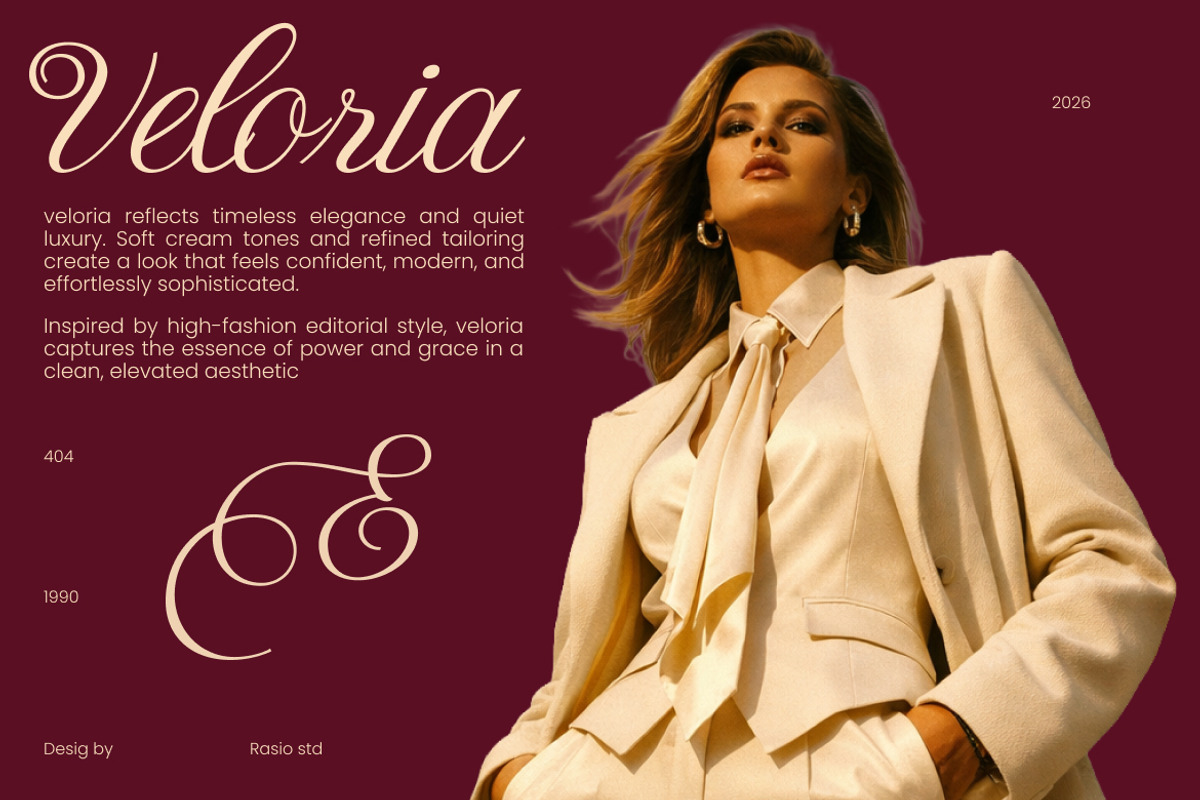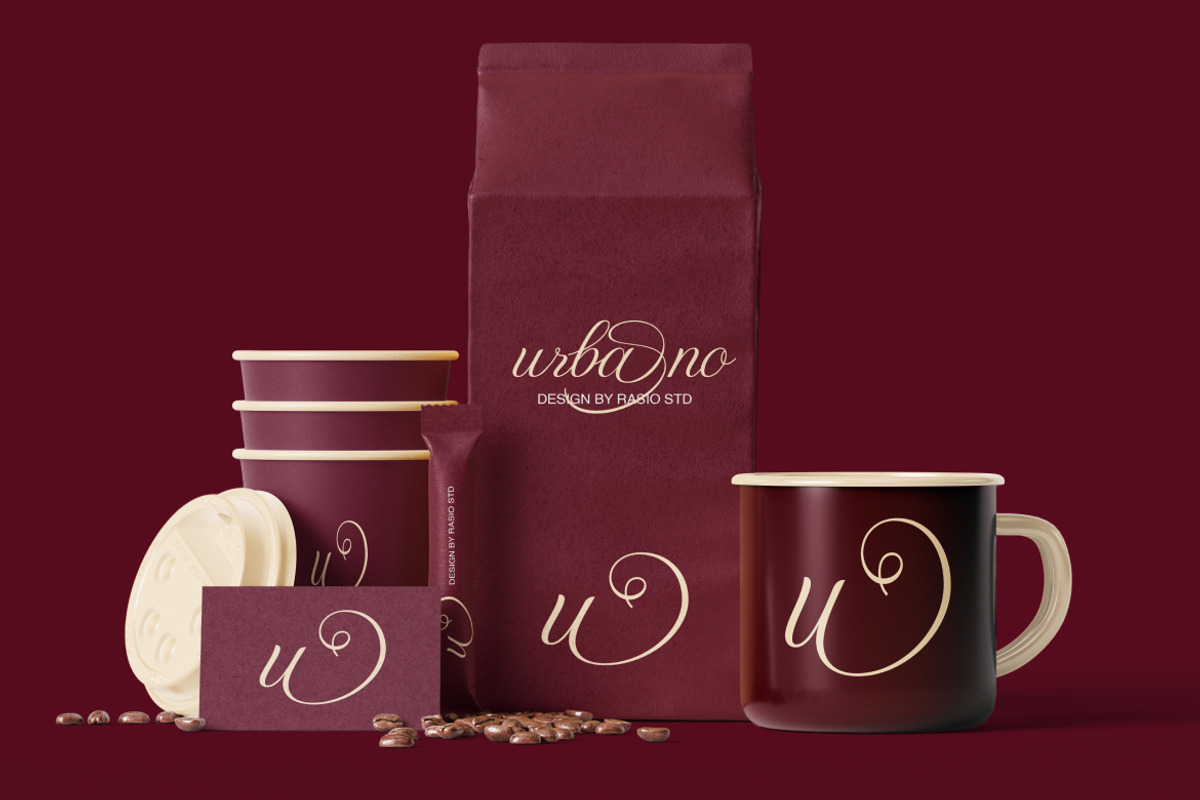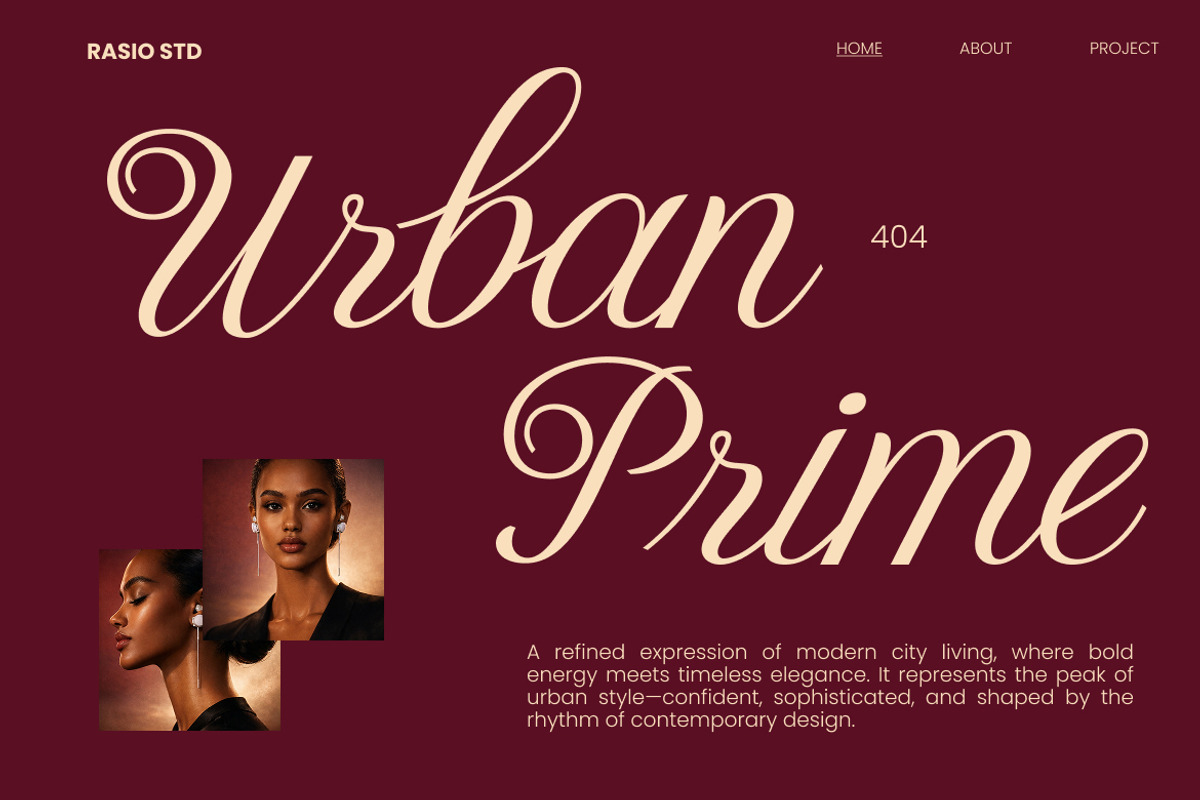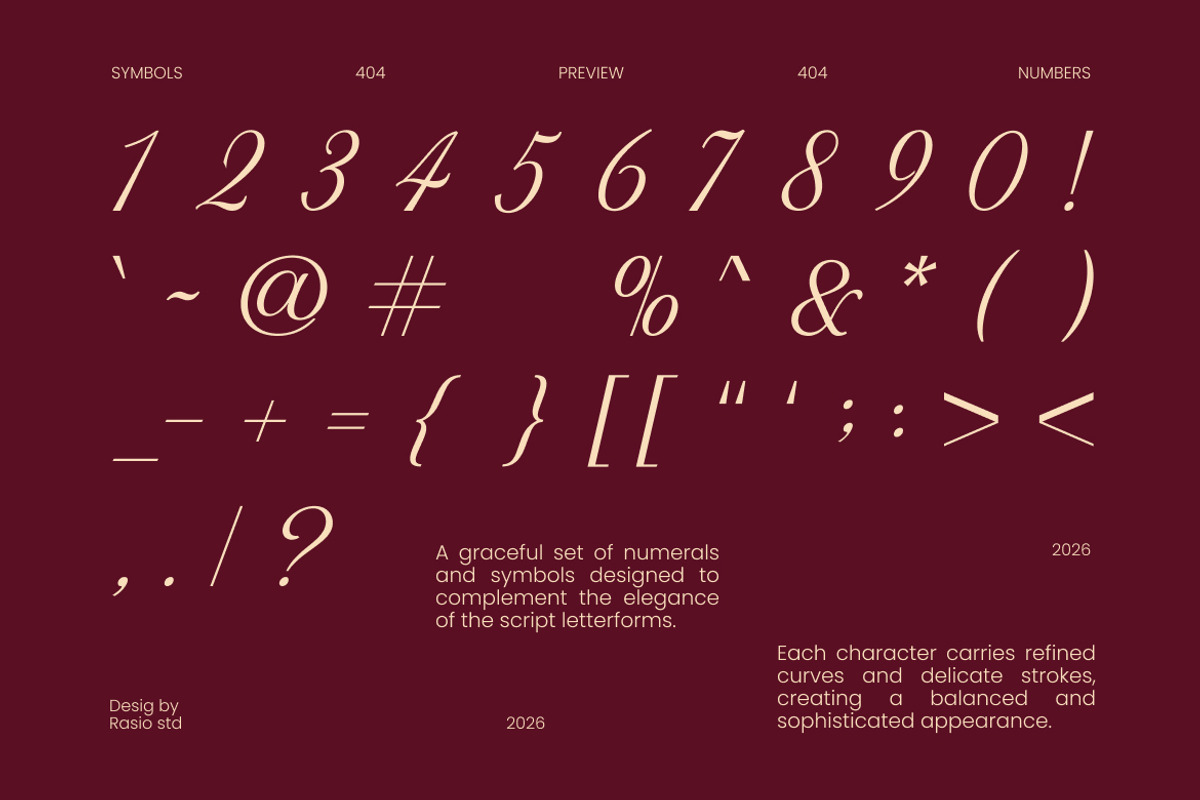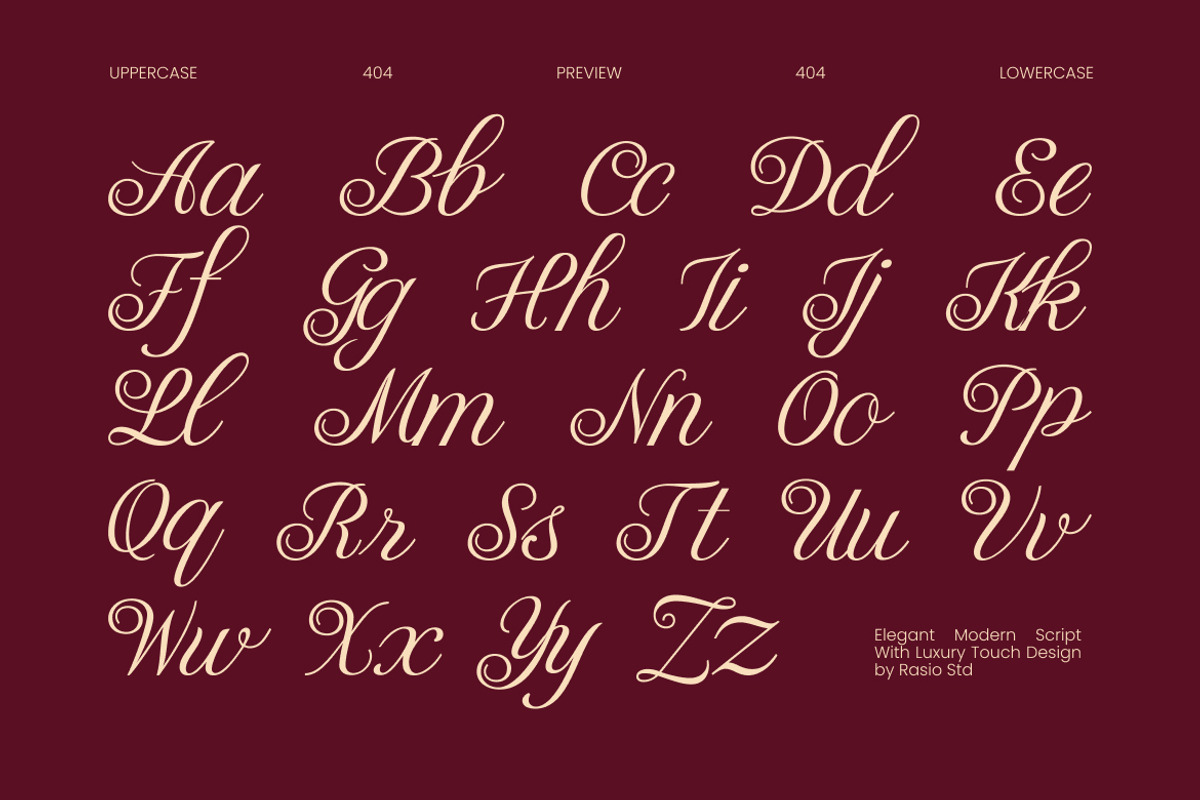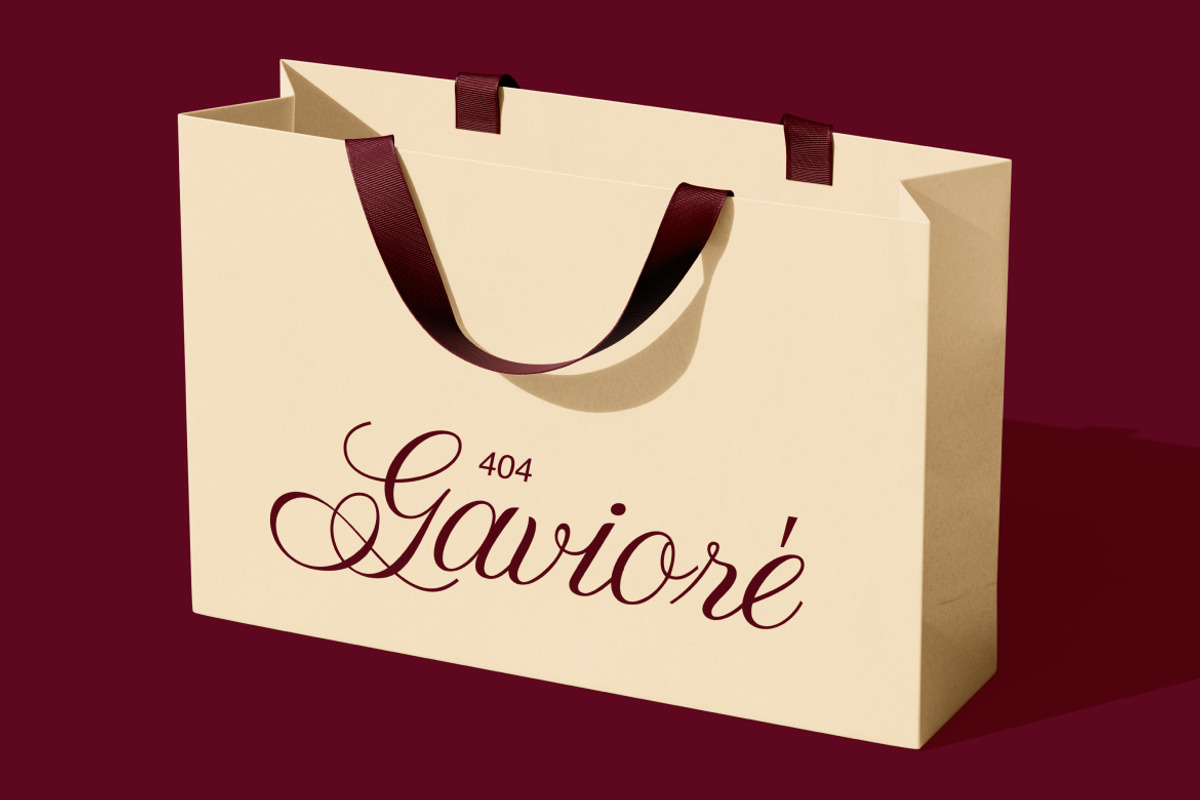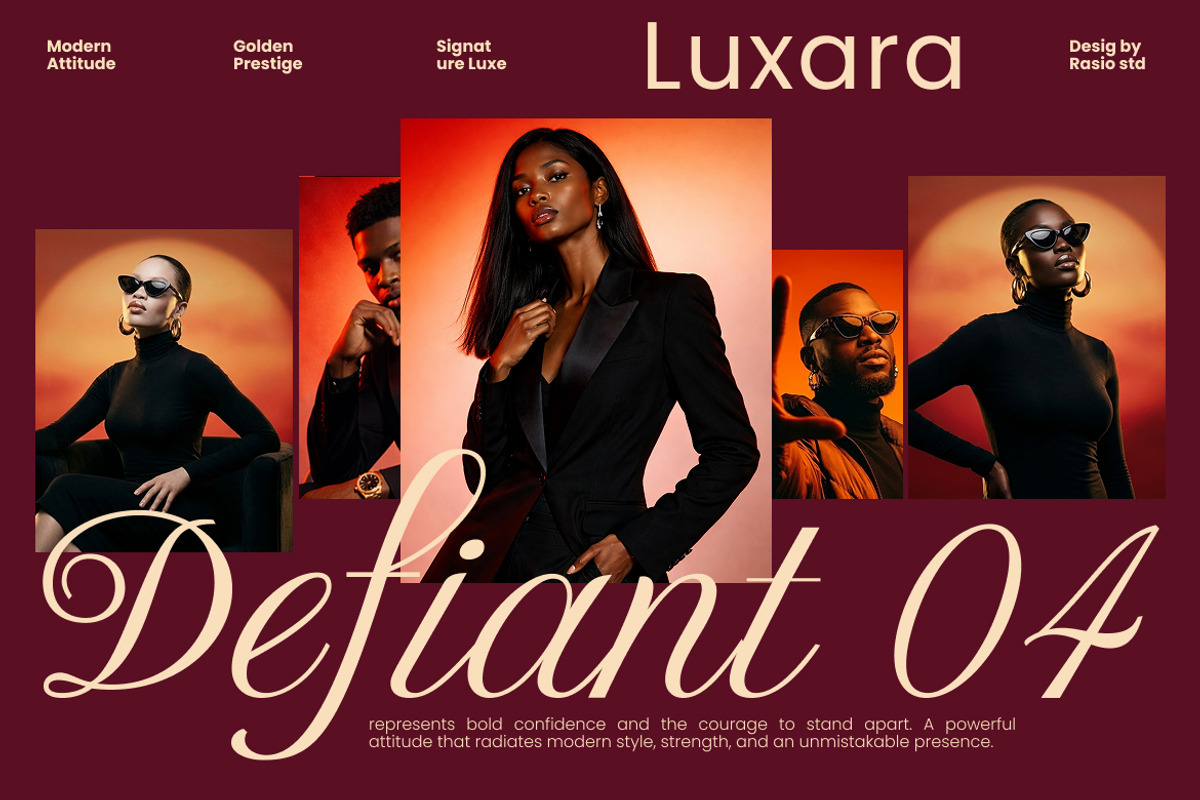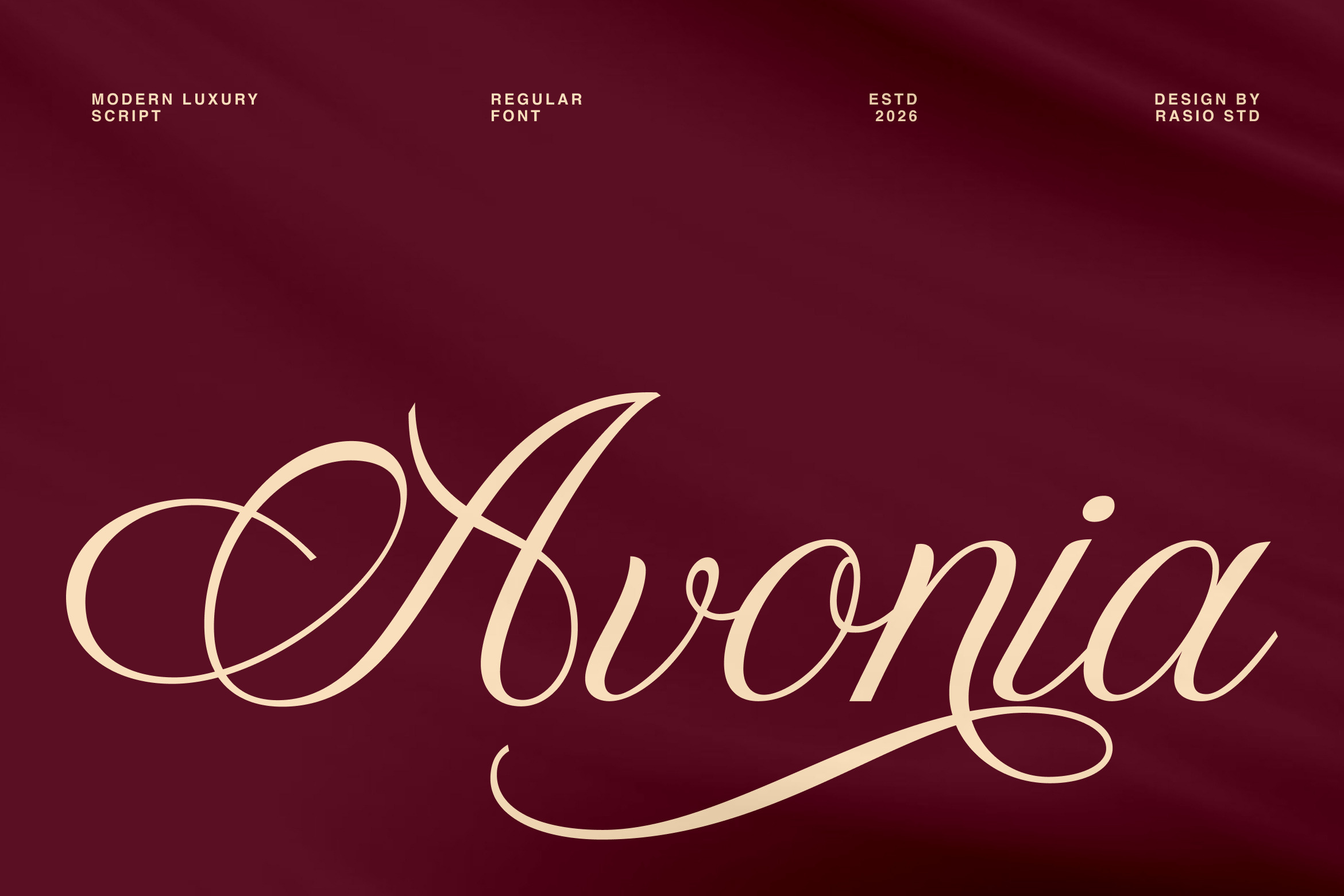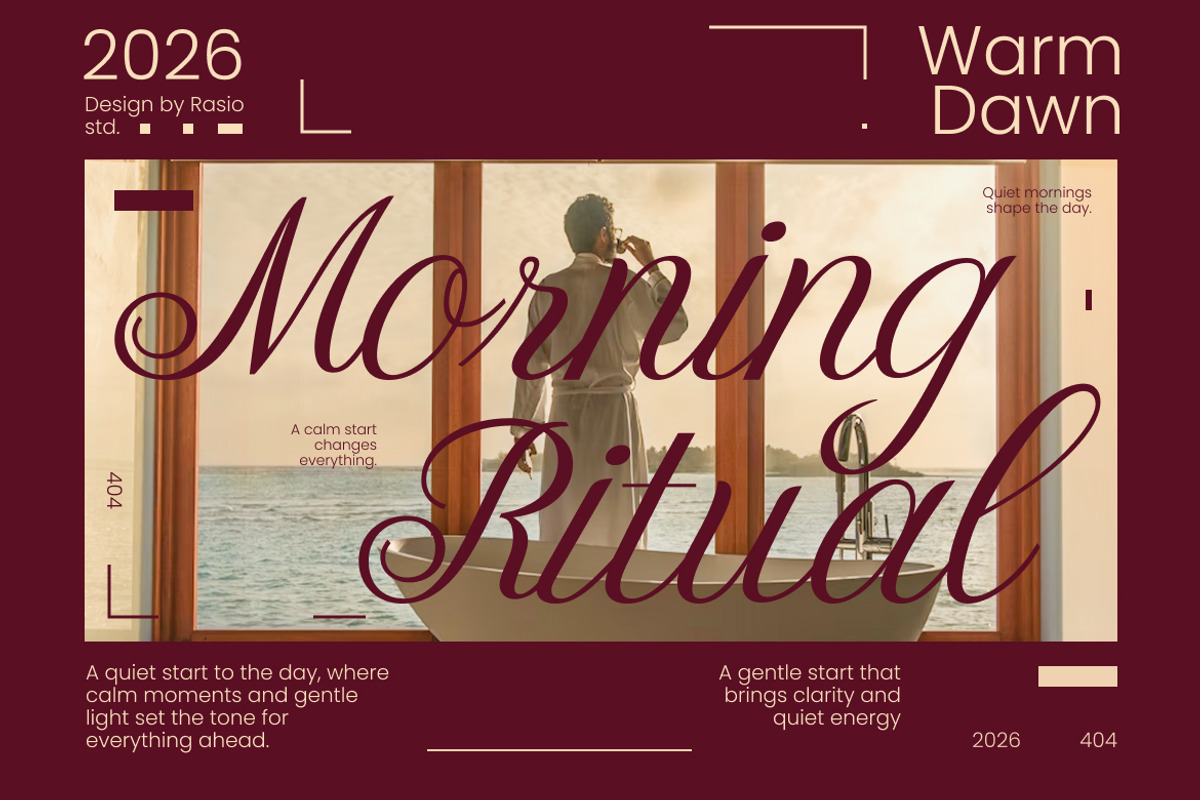
Avonia Modern Luxury Script Font
Avonia is a refined modern luxury script font featuring elegant flowing strokes and graceful letterforms with high-contrast curves. The design highlights sophisticated swashes, smooth connections, and stylish alternates that enhance visual elegance across compositions. This font includes uppercase, lowercase, numerals, punctuation. Avonia delivers a premium aesthetic suitable for branding, editorial, and upscale visual presentations.
Avonia is highly relevant for premium and elegant design projects that require a refined visual tone. It works perfectly for luxury branding, wedding invitations, fashion editorials, beauty product packaging, and social media content that emphasizes sophistication. The flowing script style enhances logos, headlines, and decorative typography, making it ideal for both personal and commercial projects seeking a timeless and graceful impression.
- Elegant script construction with flowing calligraphic strokes
- Smooth connecting letterforms that create a natural handwritten rhythm
- High contrast between thick and thin lines for a refined luxury feel -Decorative swashes and extended curves for expressive styling
- Carefully balanced spacing to maintain readability in both logo and display use
- Luxury brand identity systems with a refined and expressive tone
- Fashion editorials and high-end magazine layouts
- Wedding invitations and elegant event stationery designs
- Beauty, perfume, and boutique product packaging with a premium feel
- Social media branding and marketing visuals with a stylish and sophisticated presence